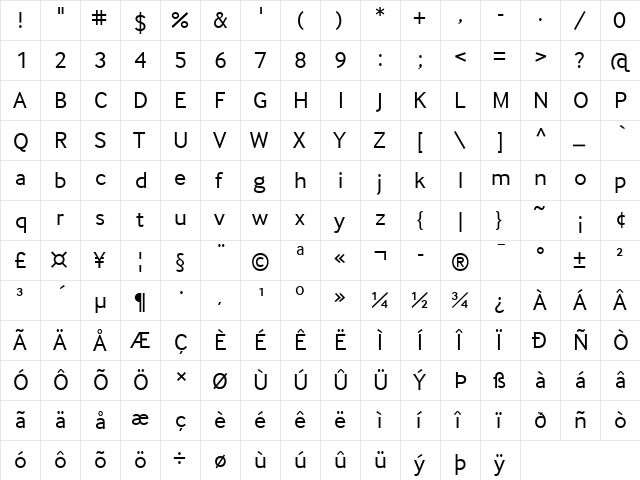
InterFace DaMa Regular
| Foundry | Dalton Maag Ltd |
| Designer | Bruno Maag |
Design Context for InterFace DaMa Typeface
InterFace DaMa is a composed and adaptable typeface that performs quietly and consistently across a wide range of design contexts.